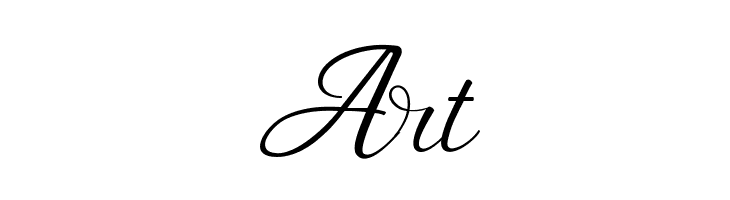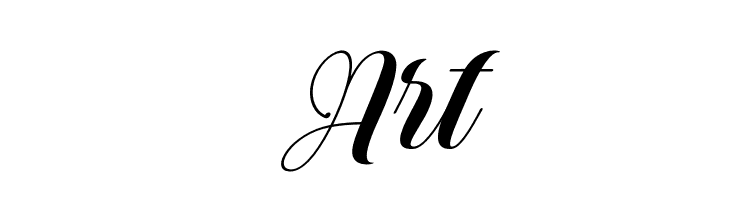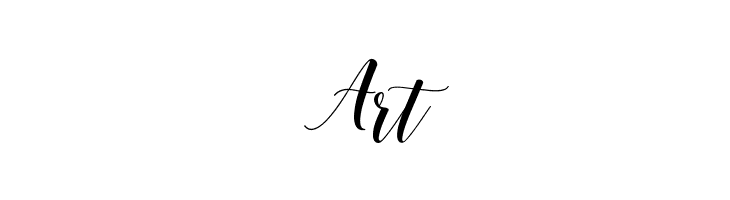
A sophisticated script font with flowing, cursive letterforms.
A sleek, modern italic font with smooth, continuous strokes.
An elegant, flowing cursive font with ornate uppercase letters and consistent rhythm.
An elegant and flowing script font with graceful, cursive letterforms.
A sophisticated script font with elegant, flowing cursive strokes.